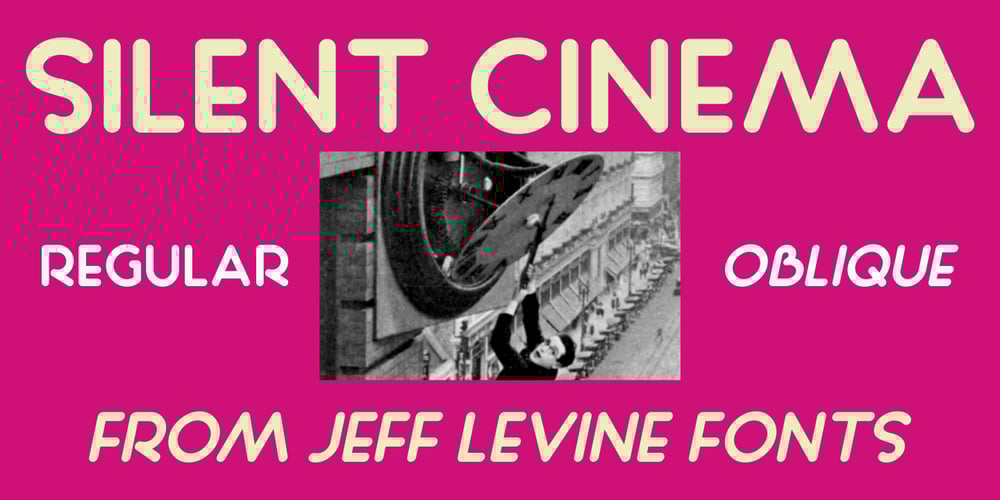
Silent Cinema JNL Font Family was designed by Jeff Levine and published by Jeff Levine. Silent Cinema JNL contains 2 styles and family package options. “The Film Daily” issue for August 30, 1927 ran an ad for Tiffany Pictures in which all of the main text was hand lettered in a sans serif style displaying the beginnings of the Art Deco movement. With their rounded terminals, the characters were designed using a round nib lettering pen.Redrawn digitally as Silent Cinema JNL, it is now available in both regular and oblique versions.